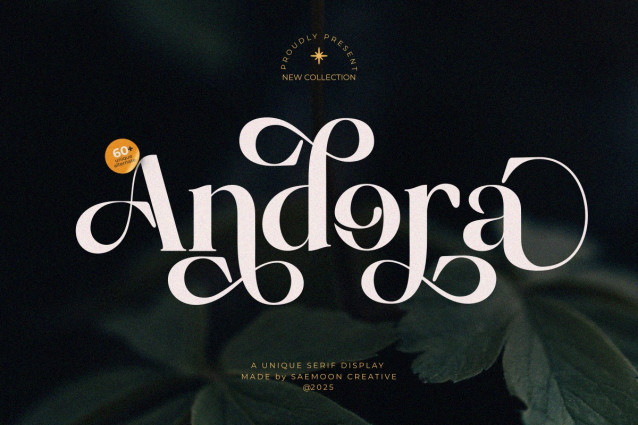
Andora Font
Andora Font is a serif display font that beautifully combines classic elegance with a touch of modern sophistication. Each letter is carefully crafted with artistic details, creating a luxurious and distinctive visual appeal.
The true uniqueness of Andora lies in its variety of alternates, designed to bring out a graceful and distinctive look in every design. These alternates allow you to customize your typography style, giving your work a refined and elegant personality that stands out effortlessly.